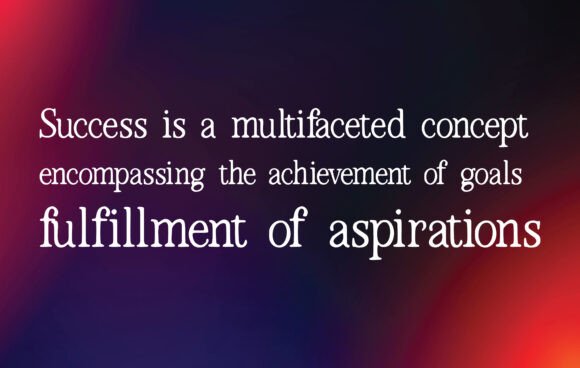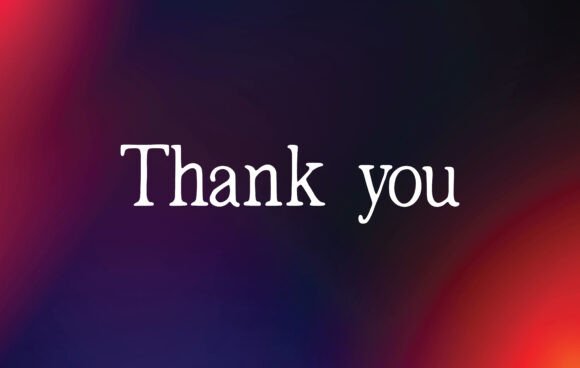
Introduction to Mikael Font
Mikael is a lovely and beautiful font.
Key Features of Mikael Font
Why Choose Mikael Font?
Mikael Font offers exceptional quality and versatility, making it a valuable addition to your design toolkit. Whether you’re creating for personal projects or commercial use, Mikael Font delivers professional results.